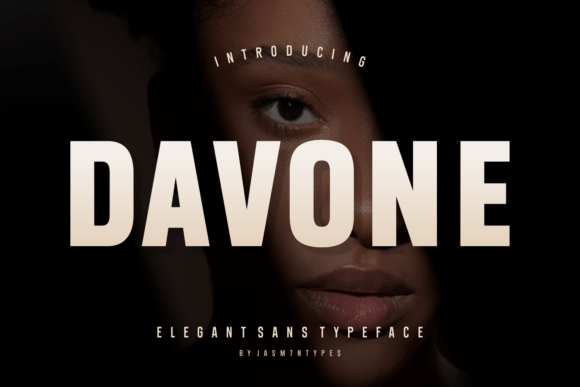
Davone Font: Elevate Your Designs with a Bold and Assertive Sans Serif Font
In the world of typography, fonts play a crucial role in conveying messages, expressing emotions, and creating visual identities. Among the numerous fonts available, Davone stands out as a bold and assertive sans serif font that can elevate any design project. In this article, we’ll explore the features, benefits, and uses of Davone font, and why it’s an incredible asset to your font library.
What is Davone Font?
Davone is a modern sans serif font designed to make a statement. Its bold and assertive style makes it perfect for headlines, titles, and emphasis text. The font’s clean and minimalist design ensures that it remains legible even at smaller sizes, making it versatile for various applications.
Key Features of Davone Font
- Bold and Assertive: Davone’s bold style demands attention, making it ideal for headlines, titles, and emphasis text.
- Sans Serif: The font’s clean and minimalist design ensures that it remains legible even at smaller sizes.
- Versatile: Davone can be used for various design projects, from digital media to print materials.
- Legible: The font’s clear and simple design makes it easy to read, even for extended periods.
Benefits of Using Davone Font
Davone font offers several benefits that make it an excellent addition to your font library. Some of the advantages of using Davone include:
- Enhanced Visual Impact: Davone’s bold style creates a strong visual impact, drawing attention to your message.
- Improved Legibility: The font’s clear and simple design ensures that your text is easy to read, even for extended periods.
- Versatility: Davone can be used for various design projects, from digital media to print materials.
- Time-Saving: With Davone, you can create professional-looking designs quickly, saving you time and effort.
Use Cases for Davone Font
Davone’s versatility makes it suitable for various design projects. Here are some use cases where Davone excels:
- Headlines and Titles: Davone’s bold style makes it perfect for headlines, titles, and emphasis text.
- Digital Media: Use Davone for website headers, social media graphics, and digital advertisements.
- Print Materials: Davone is suitable for print materials, such as brochures, posters, and business cards.
- Branding and Identity: Davone can be used to create a strong visual identity for your brand.
Tips and Tricks for Using Davone Font
To get the most out of Davone, here are some tips and tricks to keep in mind:
- Pair with Other Fonts: Combine Davone with other fonts to create a unique and visually appealing design.
- Adjust Font Size: Experiment with different font sizes to create visual hierarchy and emphasis.
- Use Color Effectively: Use color to enhance the visual impact of Davone and create a cohesive design.
In conclusion, Davone font is a bold and assertive sans serif font that can elevate any design project. Its versatility, legibility, and visual impact make it an excellent addition to your font library. Whether you’re designing for digital media or print materials, Davone is an incredible asset that can help you create professional-looking designs quickly and efficiently.